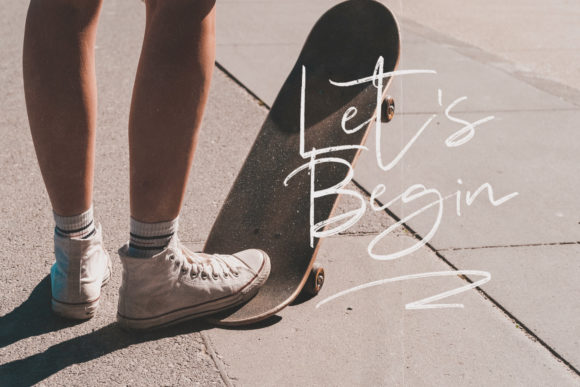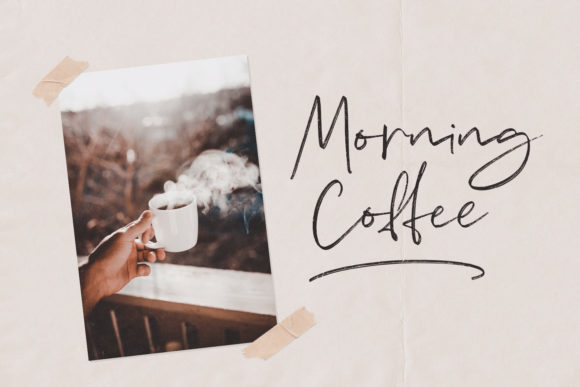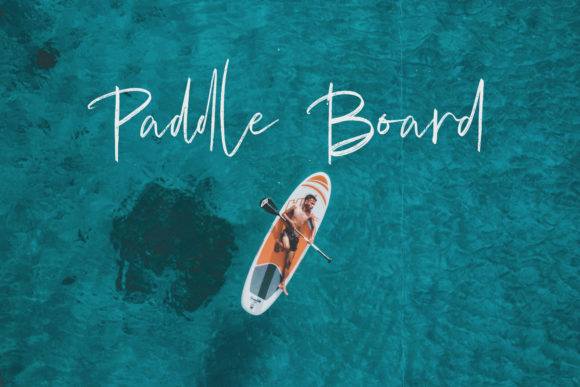
Introduction to Reedbuck Font
Have you ever found yourself stuck in a creative rut, searching for the perfect design element to elevate your project? Perhaps you’ve scrolled through countless font options, only to settle for something that just doesn’t quite fit. Well, we’ve got some exciting news for you – we’ve discovered the Reedbuck Font, a stunning script font that’s sure to breathe new life into your designs.
This lovely font exudes elegance and sophistication, making it the perfect addition to any high-quality design resource. Whether you’re working on a creative project or simply need a beautiful and refreshing look, the Reedbuck Font is an excellent choice. With its beautiful, brushed script style, it’s the perfect way to add a touch of class to your designs, from website headers to social media graphics.
One of the best things about the Reedbuck Font is its versatility – it’s perfect for use on a transparent background, and can be easily downloaded for free, making it an invaluable resource for designers of all levels.
Key Features of Reedbuck Font
- High-quality design resource suitable for creative projects, including logos, branding, and typography.
- Features a unique, modern design with a transparent background, making it perfect for projects that require a clean and minimalist aesthetic.
- Designed to be highly versatile, the Reedbuck Font can be used in a wide range of creative projects, from business cards to website headers.
Honest Review: Reedbuck Font
As a designer, I’m always on the lookout for high-quality design resources to elevate my creative projects. The Reedbuck Font is a great addition to my toolkit.
- Unique and stylish design: The Reedbuck Font has a distinctive look that adds a touch of sophistication to any project.
- Transparency: The font comes with a transparent background, making it easy to layer over images and other design elements.
- Limited character set: While the font is great for headings and titles, it may not be suitable for large blocks of text.
- Not suitable for small font sizes: The font can become difficult to read at small font sizes, so be sure to use it judiciously.
Overall, I’m impressed with the Reedbuck Font. Its unique design and transparent background make it a great addition to any design project. While it may have some limitations, I think it’s a valuable resource for designers looking to add some flair to their work.
How to Use Reedbuck Font
The Reedbuck Font is a high-quality design resource ideal for creative projects. It offers a unique and modern style that can elevate your designs.
The Reedbuck Font is suitable for various design projects such as:
- Branding materials
- Infographics
For the best results, use the Reedbuck Font on a transparent background to make it stand out. Experiment with different font sizes and styles to achieve the desired effect.
Alternatives to Reedbuck Font
1. Lato Font
Lato is a modern sans-serif font that is ideal for high-quality design projects. It features a clean and elegant design, making it perfect for creative projects that require a professional touch. Lato is available for free download and can be used on any design resource. It is highly versatile and can be used in various contexts, from headings to body text.
Lato compares well to Reedbuck Font in terms of its modern and clean design. However, it has a more geometric feel, which may not be suitable for all design projects. Lato is a great alternative for designers who want a high-quality font that is easy to read and use.
Open Sans is a popular sans-serif font that is widely used in the design industry. It features a clean and transparent design, making it perfect for creative projects that require a modern and professional touch. Open Sans is available for free download and can be used on any design resource. It is highly versatile and can be used in various contexts, from headings to body text.